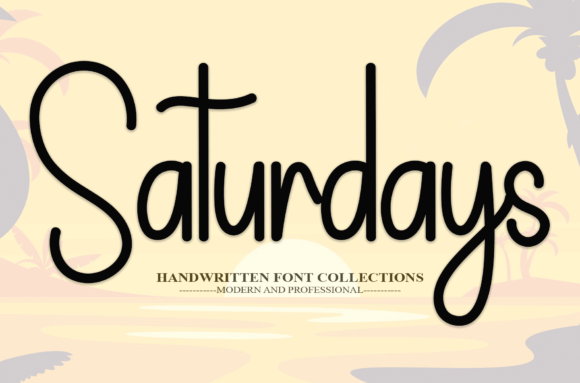
Unleash the charm of Saturdays Font - a captivating script typeface designed to inject a touch of sweetness and friendliness into your creative projects. Its fresh and neat appearance makes it the perfect choice for crafting wedding invitations, greeting cards, and other designs that yearn for a playful spirit. Saturday's Font exudes a joyful aura, inviting your words to dance across the page with effortless grace.
Step into a world of endless possibilities with Saturdays Font. Let your imagination run wild as you explore its diverse applications. Create eye-catching logos that exude a playful charm, design product labels that pop off the shelves, or add a whimsical touch to your social media posts. The versatility of Saturdays Font knows no bounds.
With Saturdays Font, you'll effortlessly create designs that resonate with your audience. Its carefully crafted letterforms evoke a sense of warmth and familiarity, drawing the viewer into your message. Whether you're a budding entrepreneur, a passionate crafter, or simply someone seeking a unique way to express themselves, Saturdays Font is your steadfast companion.
Immerse yourself in the beauty of Saturdays Font and watch as your creative visions come alive. Its intuitive design makes it a breeze to use, even for beginners. Let the smooth flow of its lines guide your fingers as you effortlessly create captivating designs that capture hearts and minds.
Saturdays Font - a font that sparks joy, ignites creativity, and transforms ordinary designs into extraordinary expressions. Embark on an artistic adventure like never before and let Saturdays Font be your trusted guide.